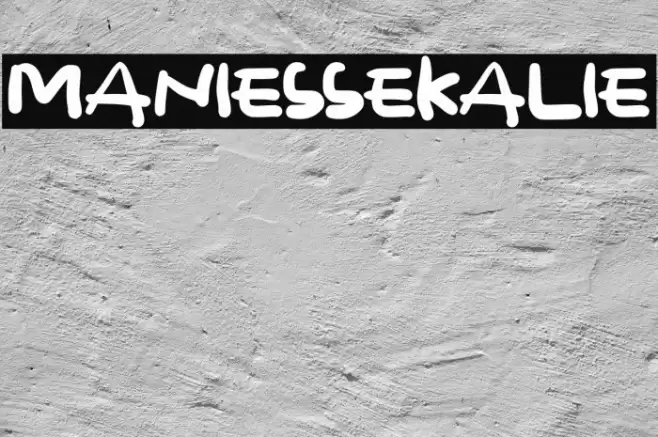
MANIESSEKALIE Font
MANIESSEKALIE Description
This font features a playful and casual handwritten style, characterized by its bold and slightly irregular strokes. The uppercase letters are prominent and have a whimsical touch, while the lowercase letters maintain a consistent flow, adding to the font's informal charm. The overall appearance is approachable and friendly, making it suitable for projects that require a personal touch. The font's unique style is enhanced by its medium contrast in stroke thickness, providing a dynamic yet balanced look. The character spacing is normal, ensuring readability while maintaining its distinctive style.
A playful, handwritten font with bold strokes and a casual, friendly style from Uncategorized fonts.
- Proposed Projects: Ideal for greeting cards, children's books, playful branding, and informal invitations.
- Overall Style: Casual, Playful
- Use Case: Logos, Headlines, Informal Text